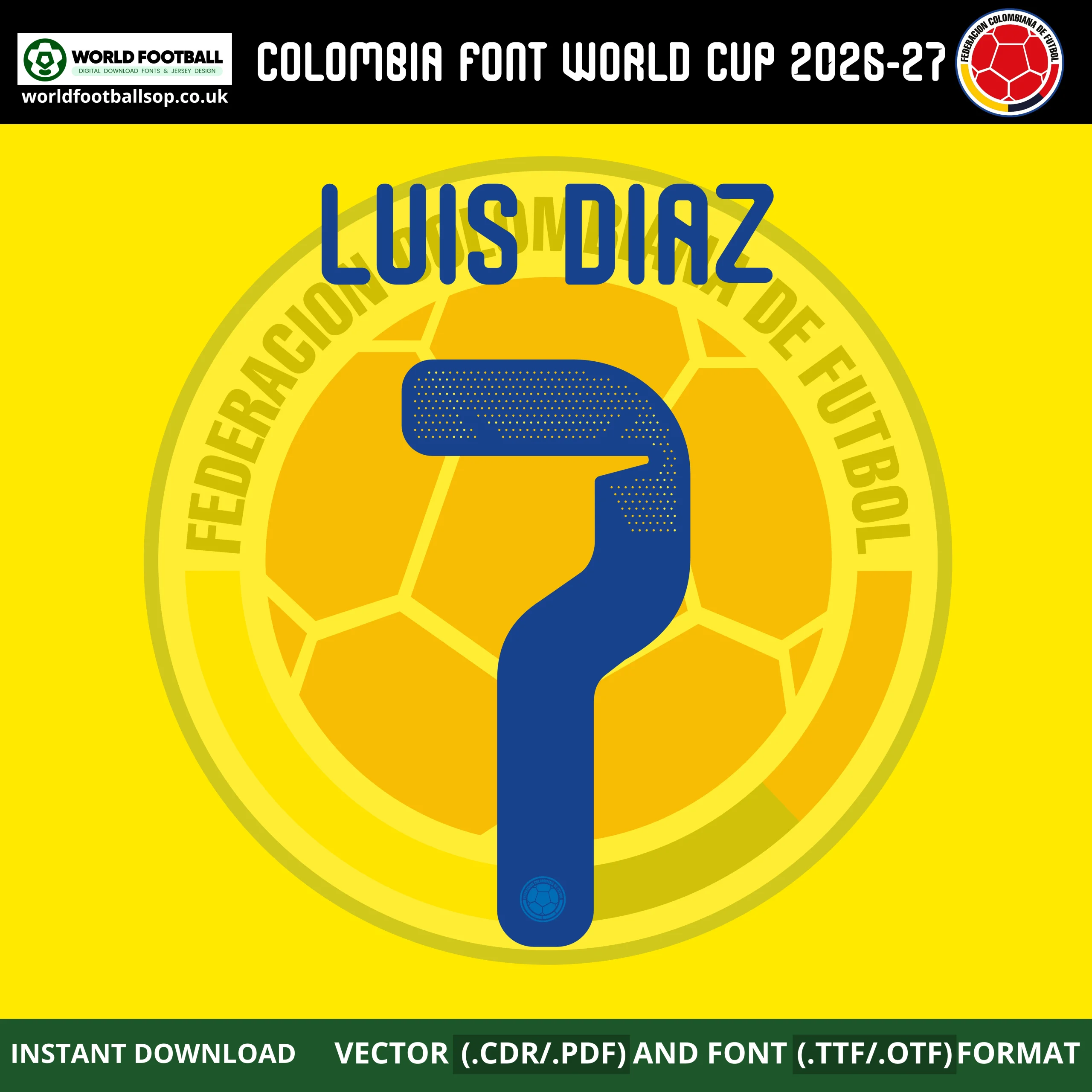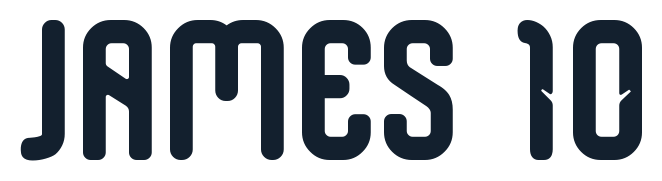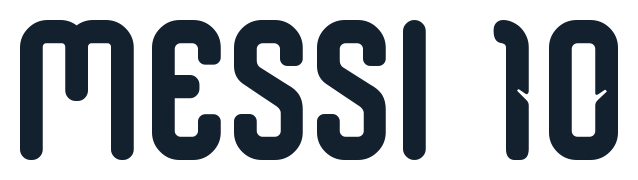
Colombia World Cup 2026 Font - Official‑style Jersey Typography
The Colombia World Cup 2026 Font football Kit recreates the bold Adidas lettering used on Los Cafeteros’ 2026 World Cup shirts. Tall, modern numbers with clean inner lines and matching letters give your designs the same look seen on the pitch, from TV‑ready back names to training‑ground graphics. This pack is ideal for fans, designers and print shops who want authentic‑style Colombia namesets for shirts, posters and digital artwork.
The letters and numbers are carefully redrawn from the 2026 World Cup kit, keeping the proportions and stroke details consistent so every name and number combination looks professional. Thanks to the included desktop fonts and vector outlines, you can use this typeface in your usual design workflow and scale it from small chest numbers to giant stadium banners without losing sharpness.
Colombia Home Font World Cup 2026 – bold blue rounded jersey font with full numbers and alphabet, available in TTF, OTF, CDR and PDF at worldfootballshop.co.uk
Numbers 0-9 in the official‑style Colombia World Cup 2026 design
Design highlights
World Cup authenticity: Inspired by the official Colombia 2026 World Cup kit font, matching the angular Adidas 2026 style
High visibility: Strong shapes and clear spacing make names and numbers easy to read on the pitch and in digital artwork